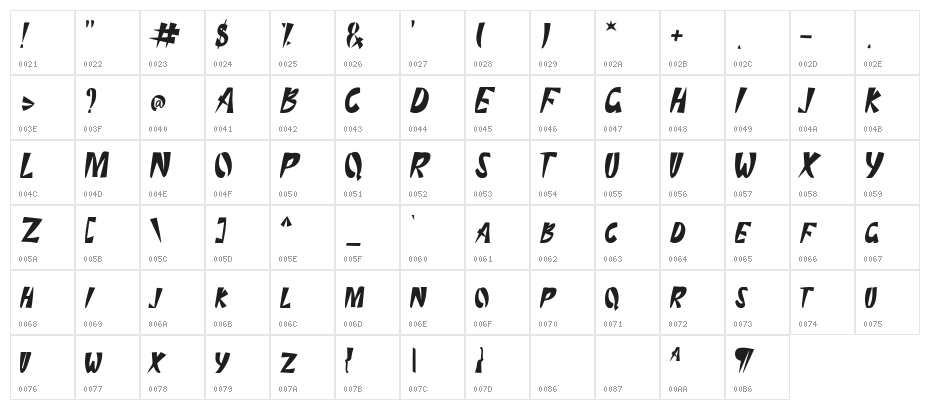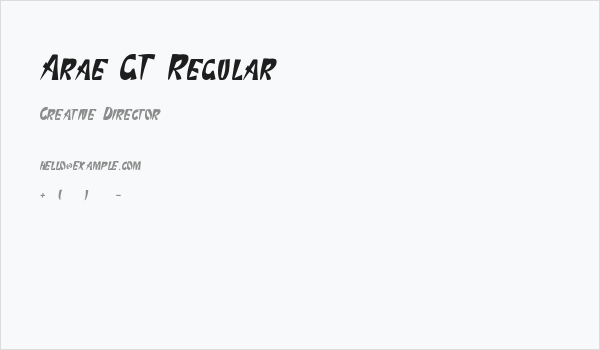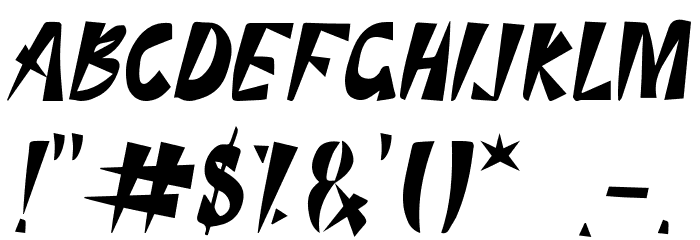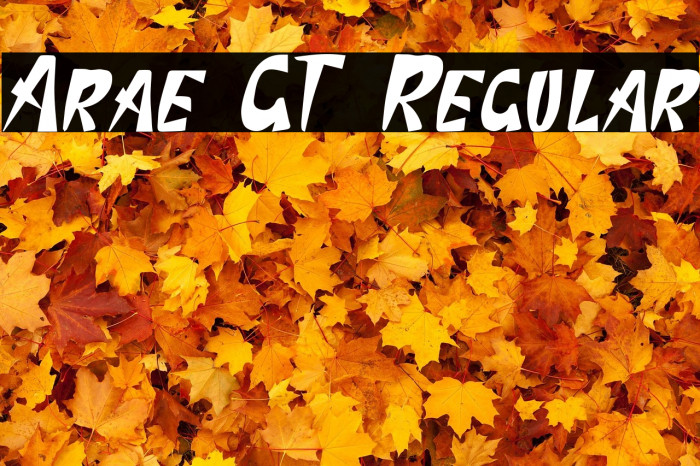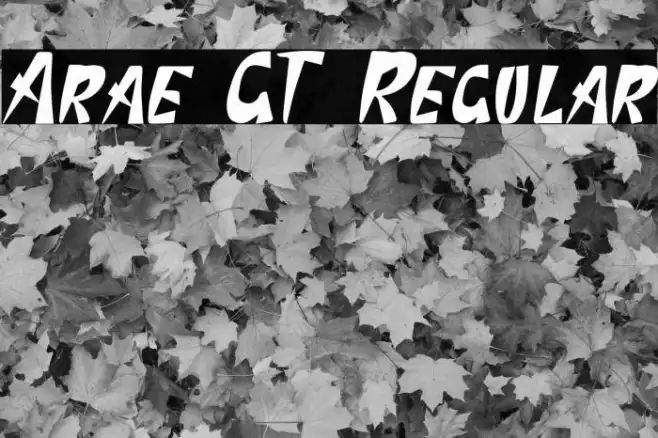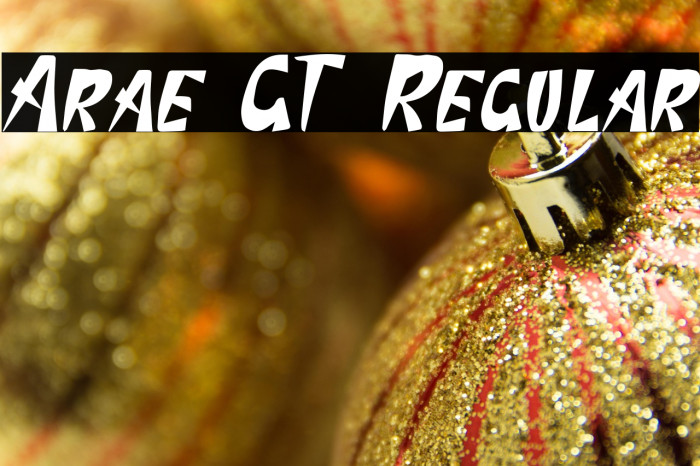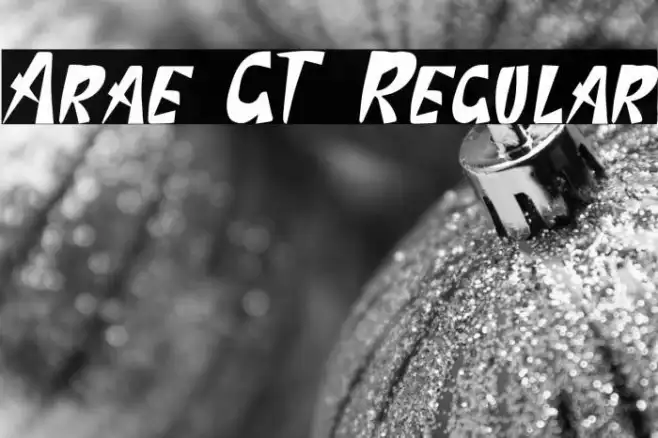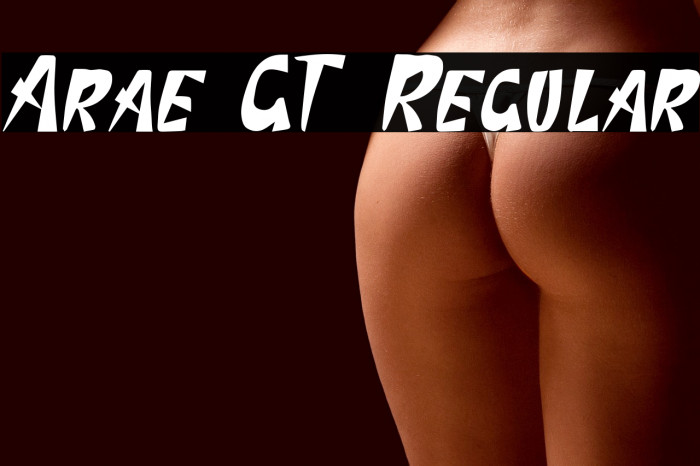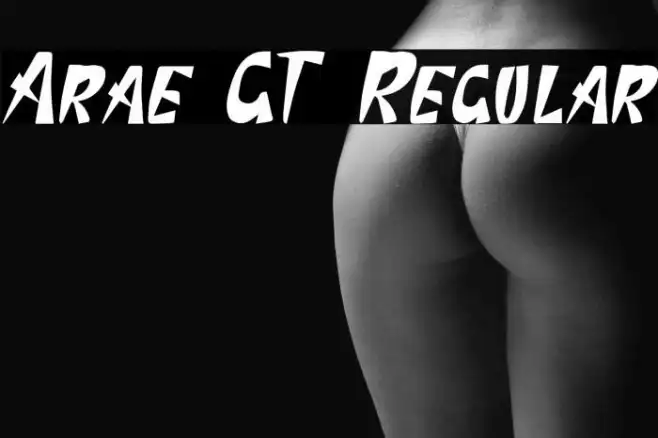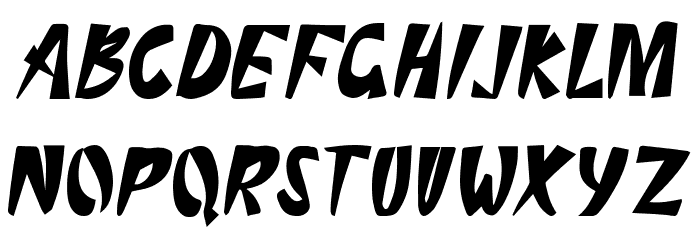
Arae GT Regular Font
Arae GT Regular Description
This font features a bold and dynamic style with sharp, angular lines and a slightly italicized slant. The characters are designed with a sense of movement and energy, making them stand out with a unique flair. The uppercase letters are particularly striking, with exaggerated serifs and a strong presence. The lowercase letters maintain the same energetic style, providing consistency throughout the typeface. The numbers and special characters are equally bold, ensuring they complement the overall design. This font is ideal for projects that require a strong visual impact.